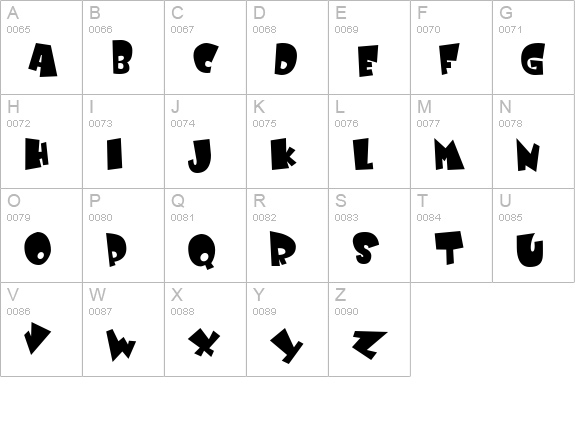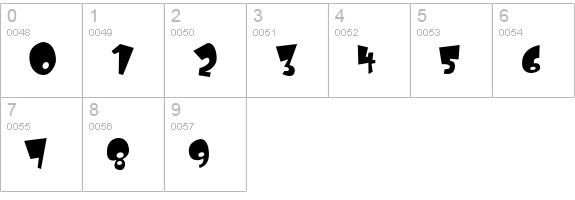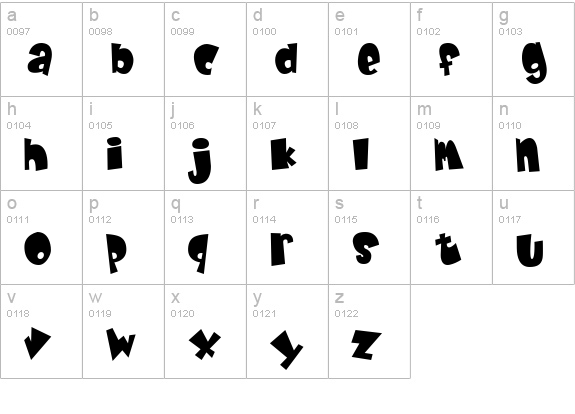
TR Baby Kruffy Font Details
TR Baby Kruffy font is a whimsical and playful typeface that exudes a sense of childlike charm and creativity. With its rounded edges and quirky letterforms, this font is perfect for adding a touch of fun to your designs. Whether you're working on a children's book, a birthday invitation, or a playful branding project, TR Baby Kruffy font is sure to bring a smile to your audience's face. The best part? TR Baby Kruffy font is available for free download at FontsMarket.com. So go ahead and add this delightful font to your collection today and let your imagination run wild with its endless creative possibilities.